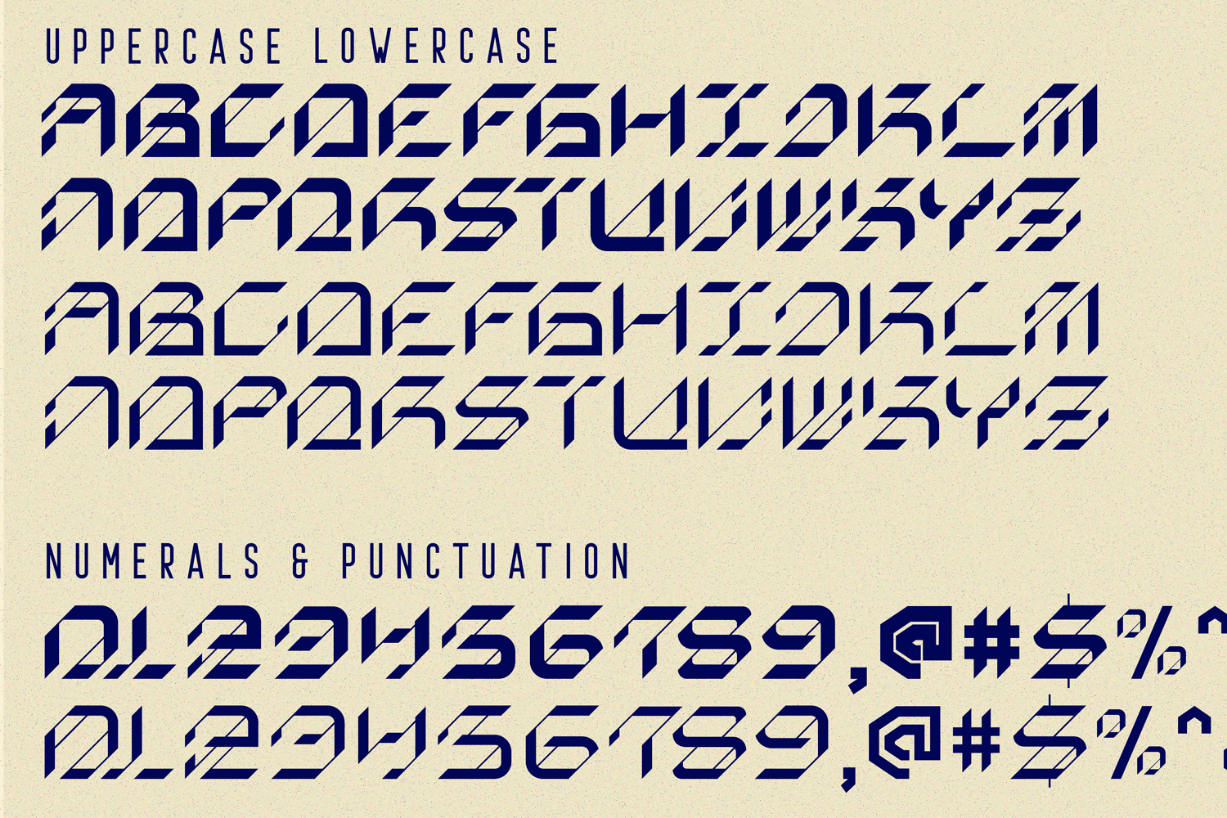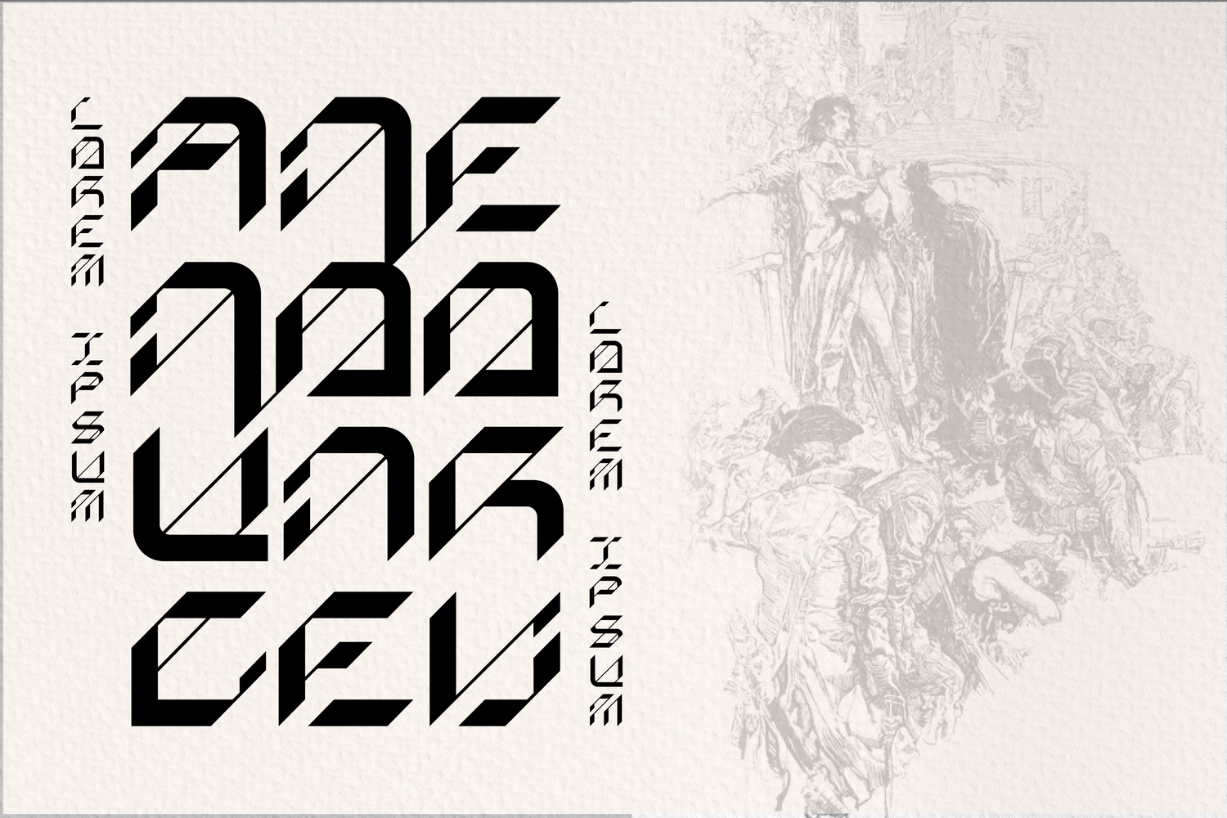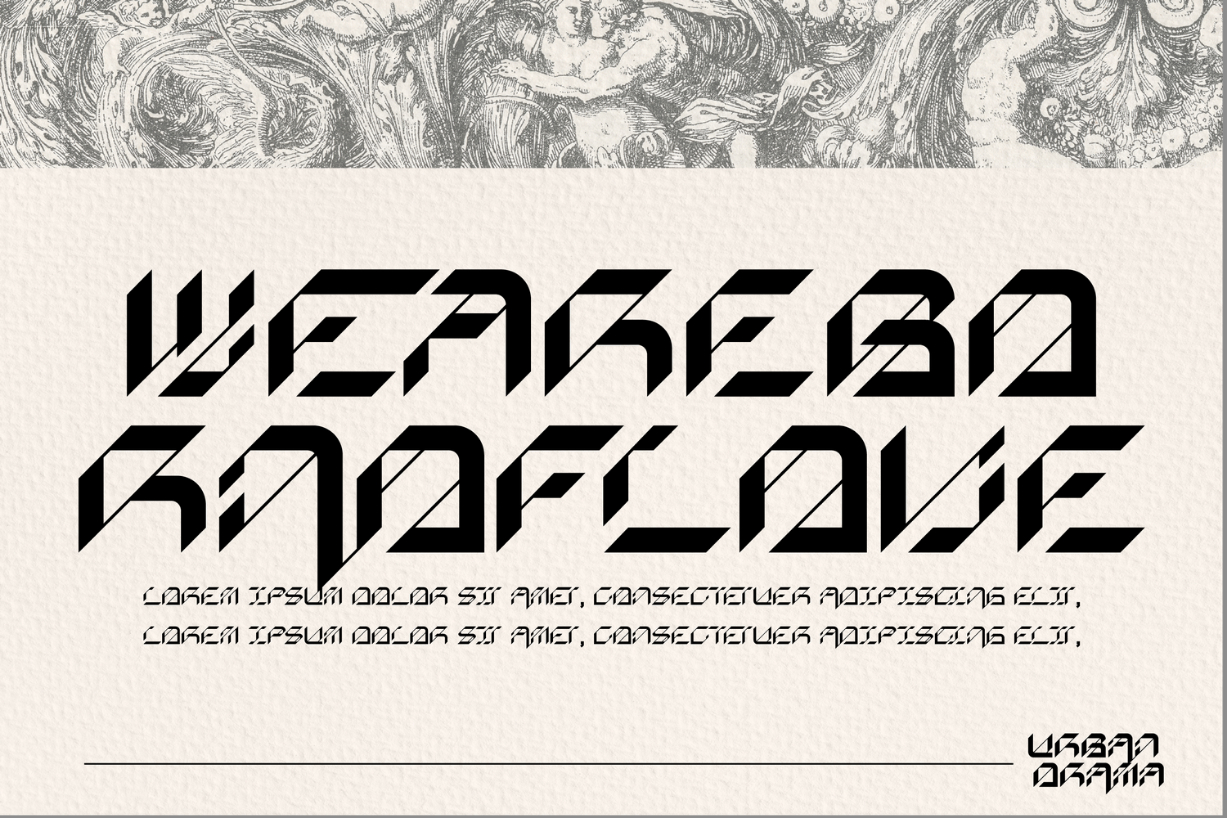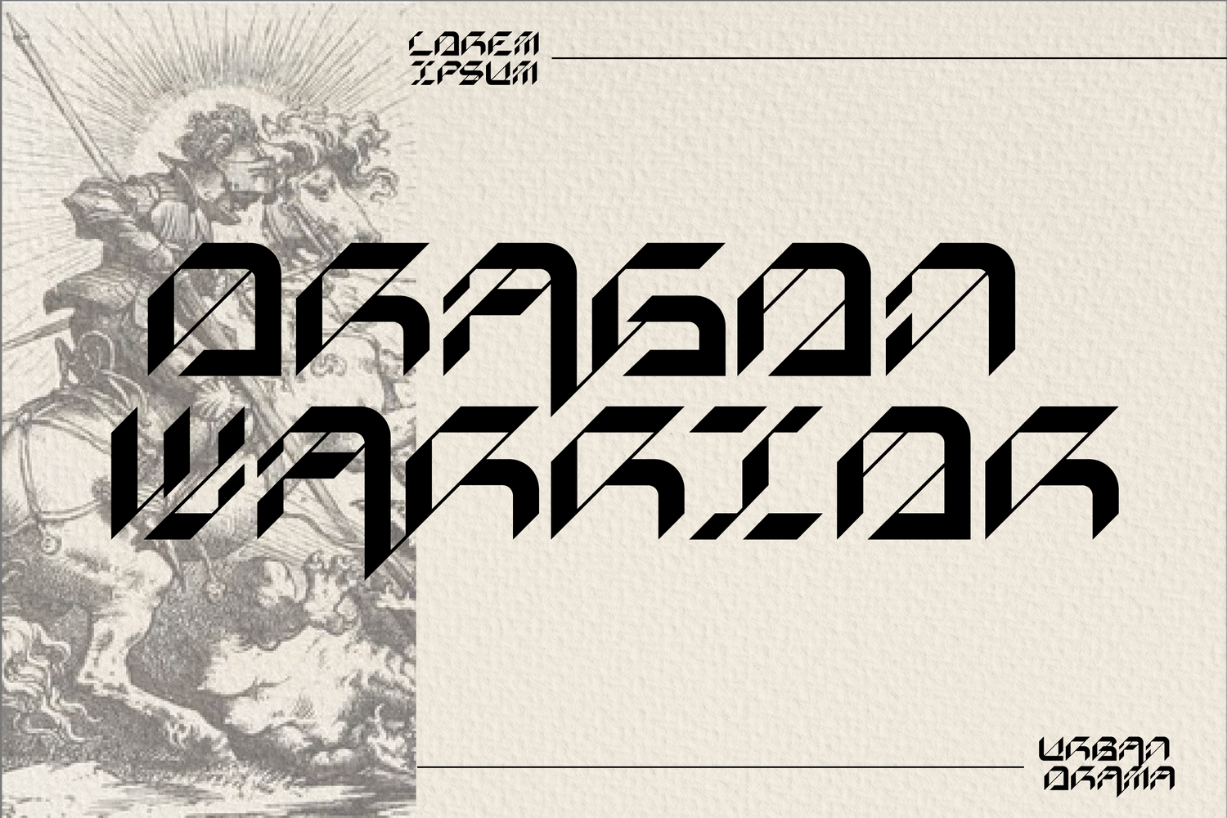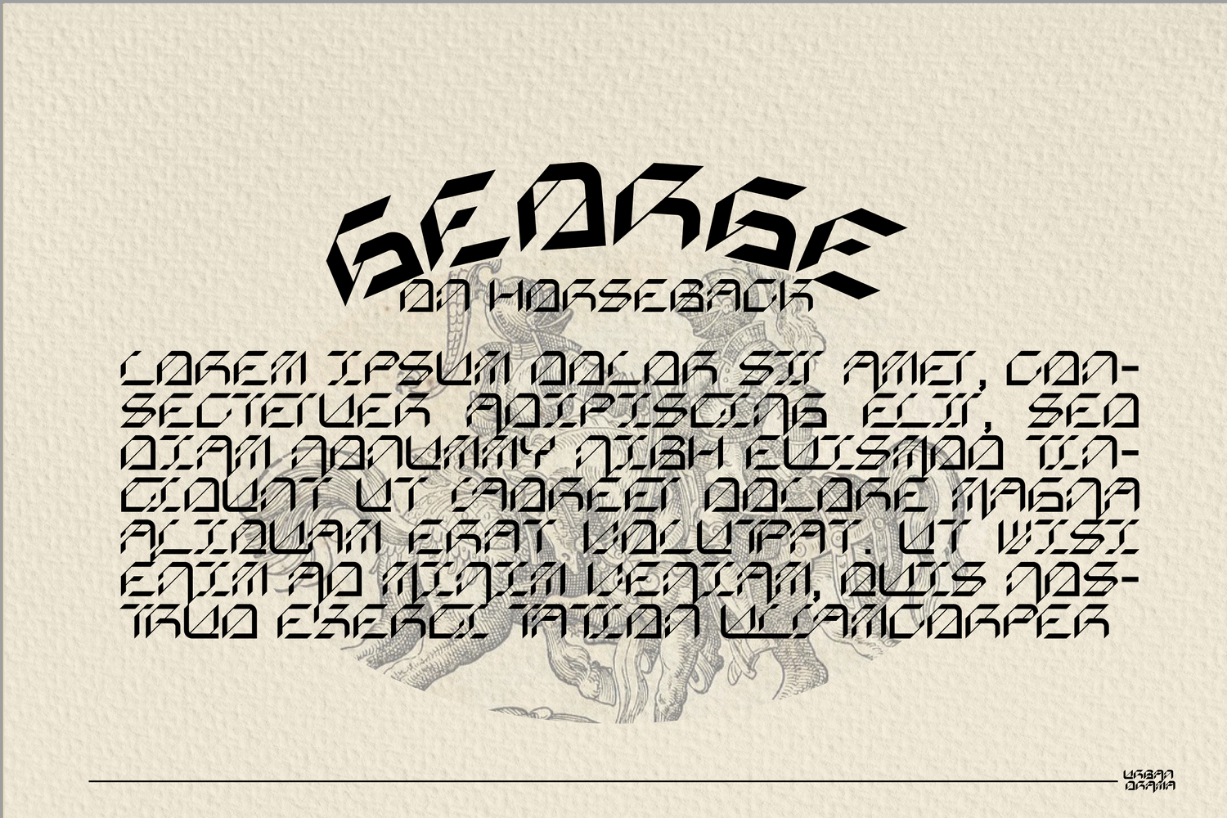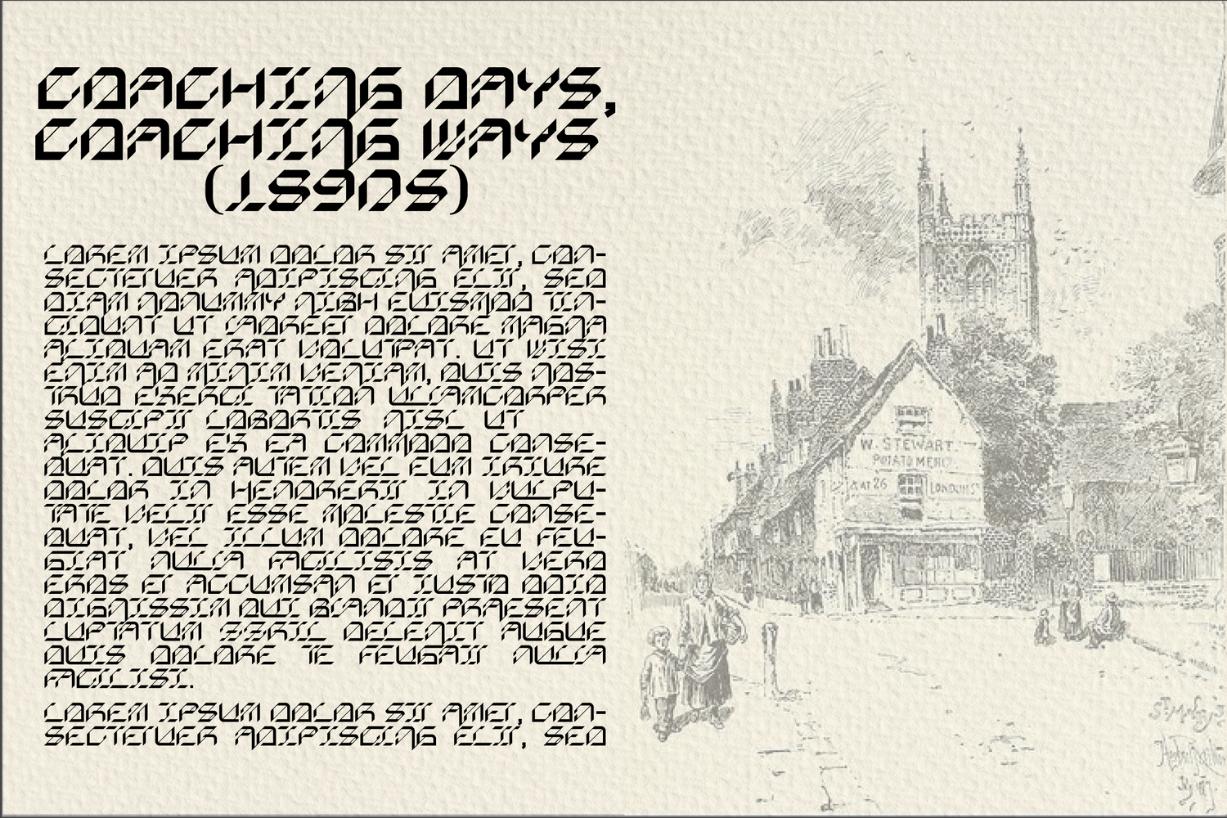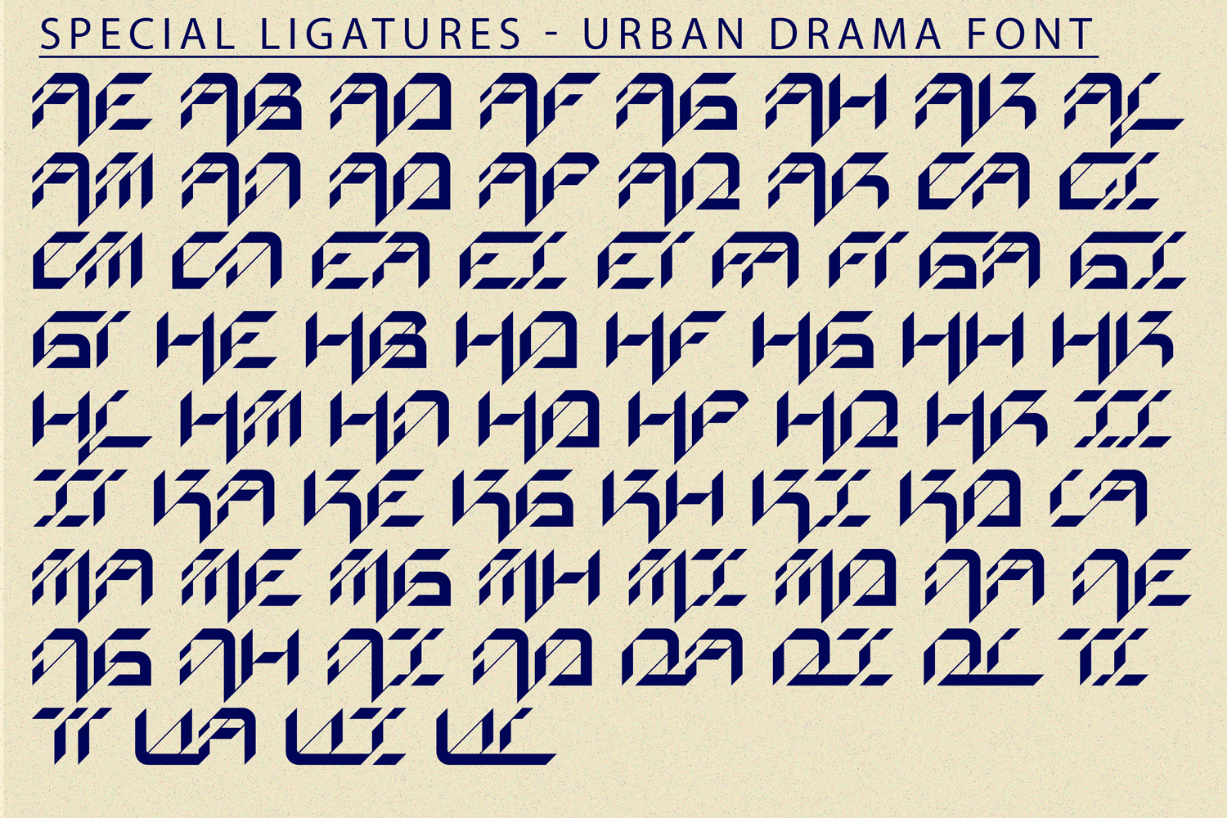
Urban Drama Font
About Urban Drama Font
Urban Drama is a bold, futuristic blackletter font combining the strength of ancient characters with modern, cutting-edge designs. Perfect for creating powerful and timeless logos. This font is PUA encoded which means you can access all of the amazing glyphs and ligatures with ease!